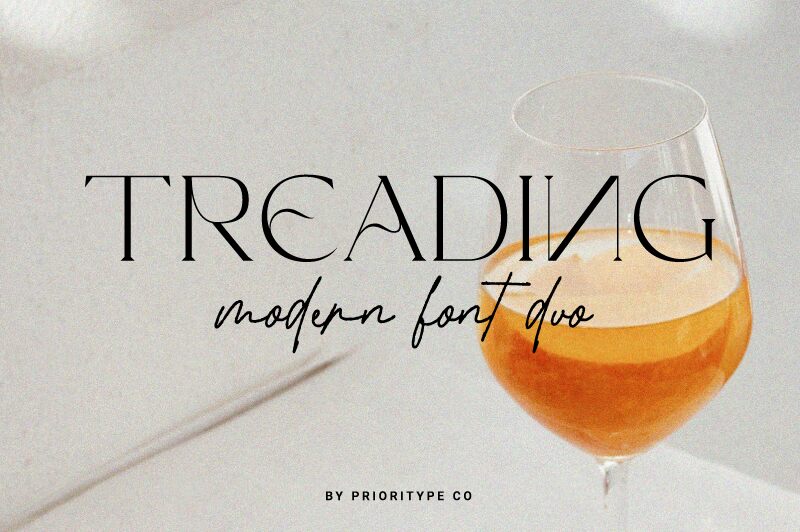
Treading Serif, crafted by Prioritype Co, is an elegant and refined serif font with a touch of modernity. Its semi-light weight and semi-expanded width create a harmonious balance between legibility and sophistication.
Perfectly suited for editorial projects such as magazines, newspapers, and books, Treading Serif adds a timeless charm to any text. Whether used for fashion articles or historical novels, this versatile typeface effortlessly conveys a sense of professionalism and class. With its clean lines and subtle curves, Treading Serif captures attention while maintaining readability - making it an ideal choice for captivating headlines or captivating body copy.